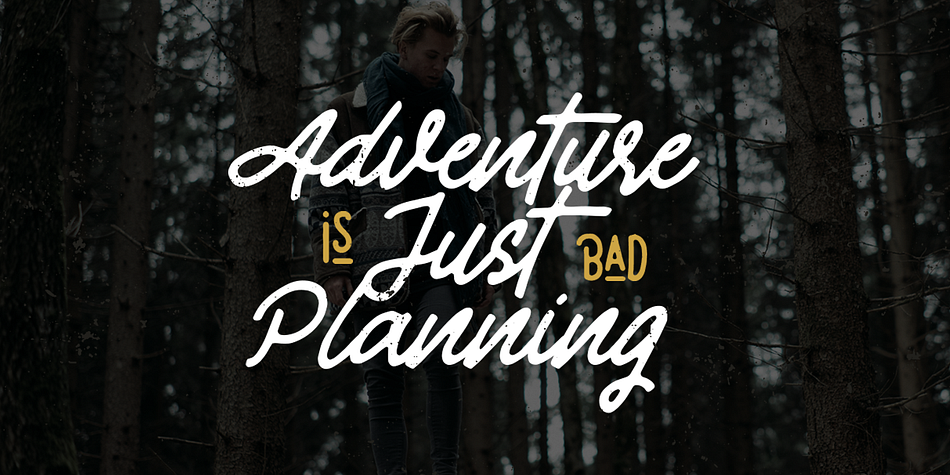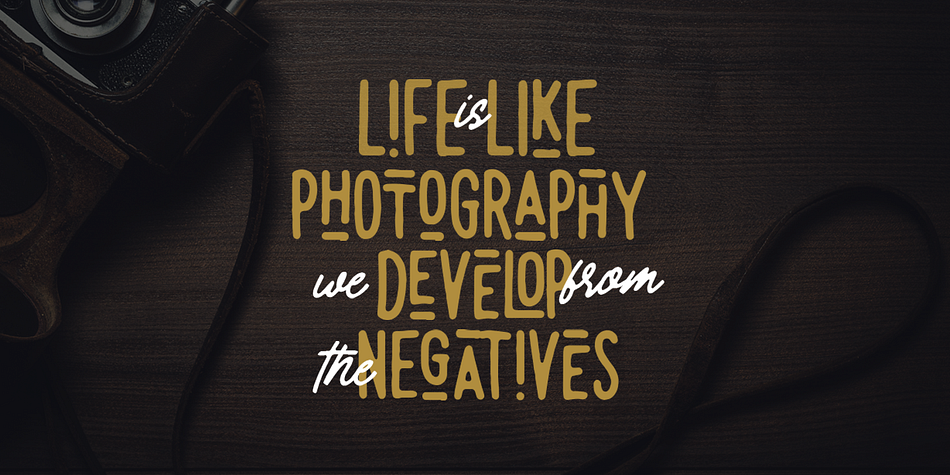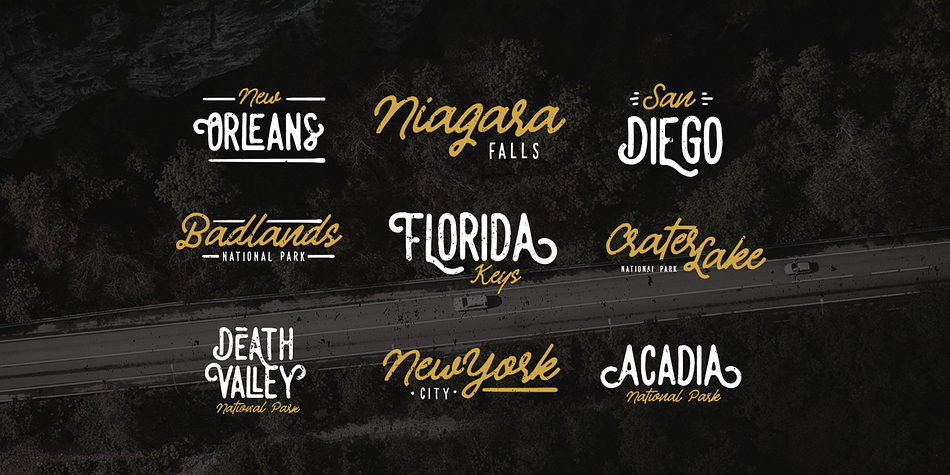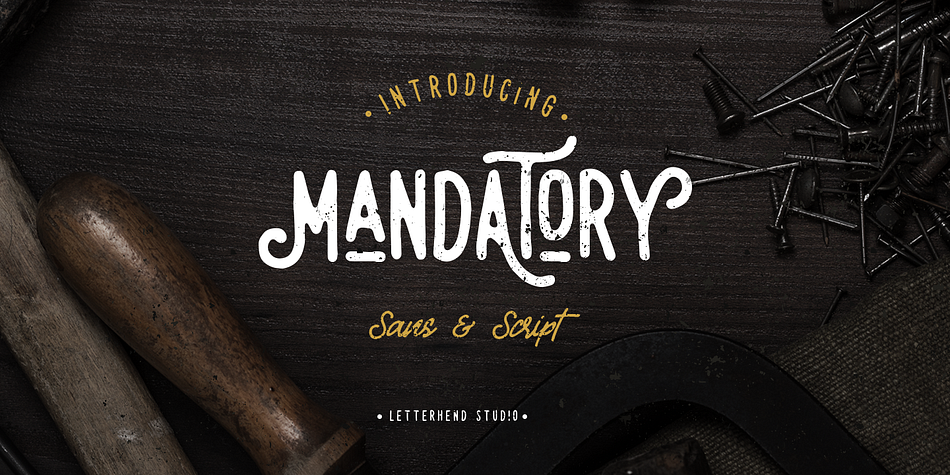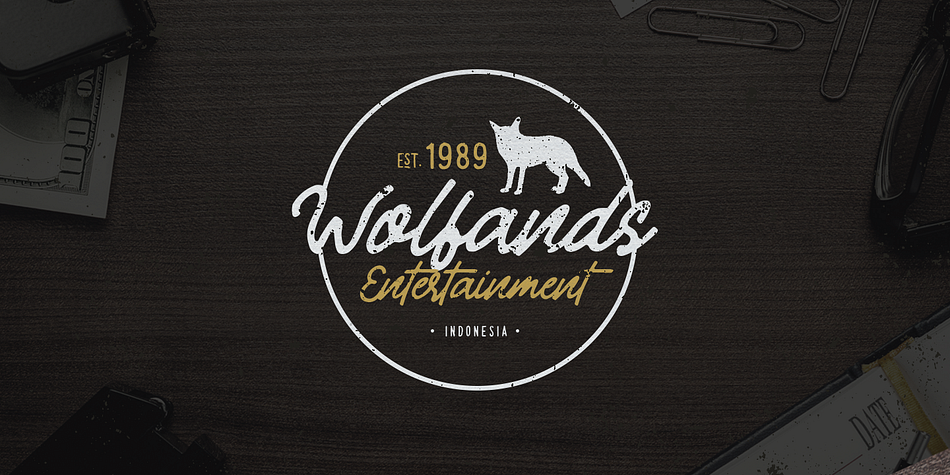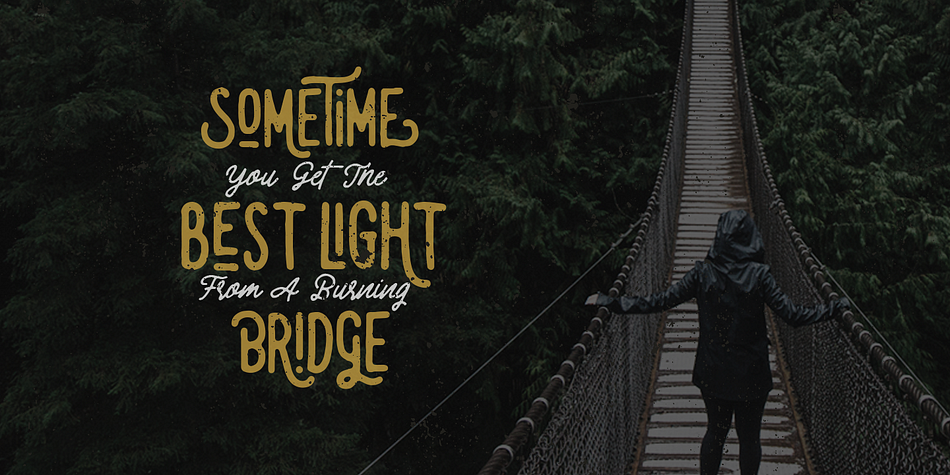
Designed by Hendry Juanda, Mandatory is a hand display and script font family. This typeface has two styles and was published by Letterhend Studio.
Mandatory is a vintage font duo! This font comes with unique sans and script with the retro feel. Perfect to use in logotype/wordmark, badge, sign board, poster, headline text, apparel, wedding invitation, etc. This font has many opentype features like ligature, stylistic alternate, contextual alternate, swash, etc and support multi language.
Styles | Hand Display, Script |